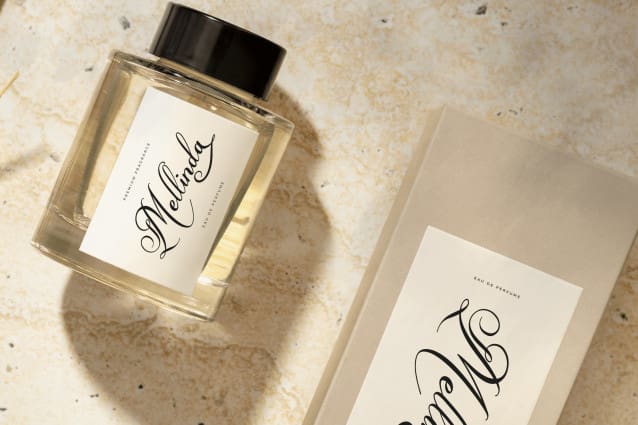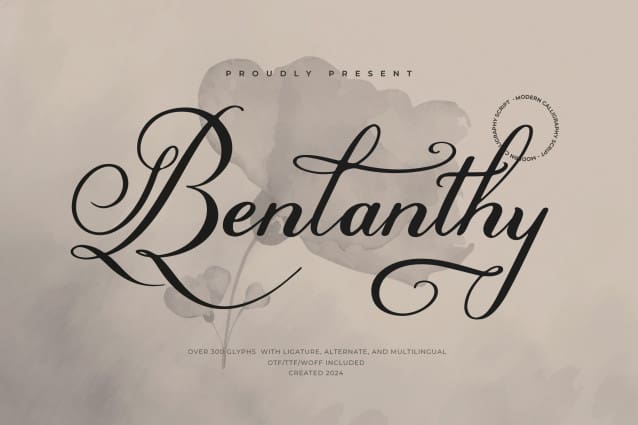
Benlanthy Font
Benlanthy Font | Modern Calligraphy Script, from Denustudios, suitable for any projects such as: logos, branding projects, homeware designs, product packaging, mugs, quotes, posters, shopping bags, t-shirts, book covers, name card, invitation cards, greeting cards, label, photography, watermark, special events, and all your other lovely projects that need a Modern Calligraphy Script taste.